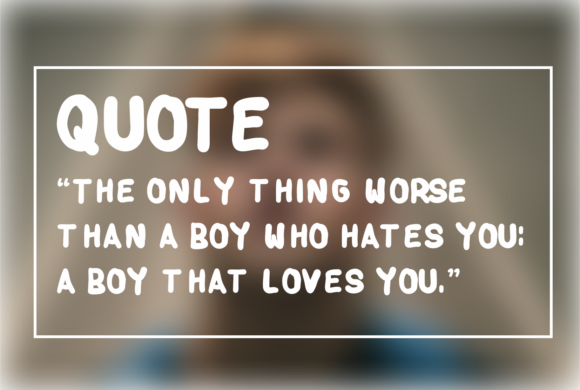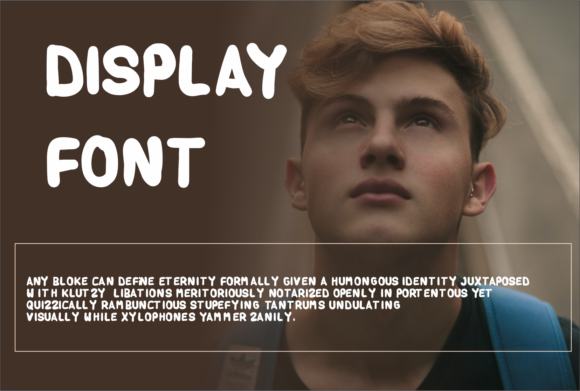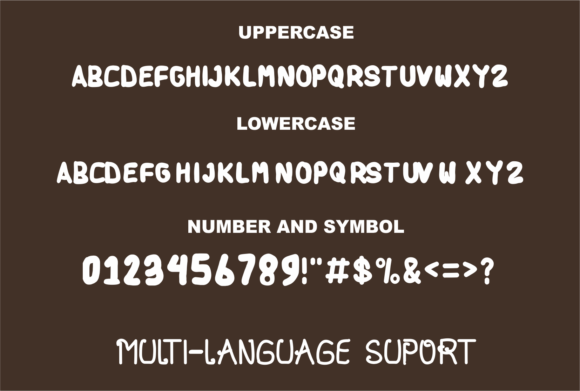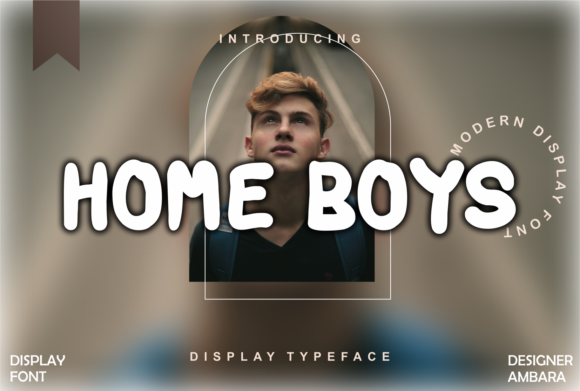
Introduction to Home Boys Font
Home Boys is a neat and modern display font with stylish characters and nicely rounded edges.
It is a great choice for almost any creative project, as it can elevate the appearance of any item .
Key Features of Home Boys Font
Why Choose Home Boys Font?
Home Boys Font offers exceptional quality and versatility, making it a valuable addition to your design toolkit. Whether you’re creating for personal projects or commercial use, Home Boys Font delivers professional results.